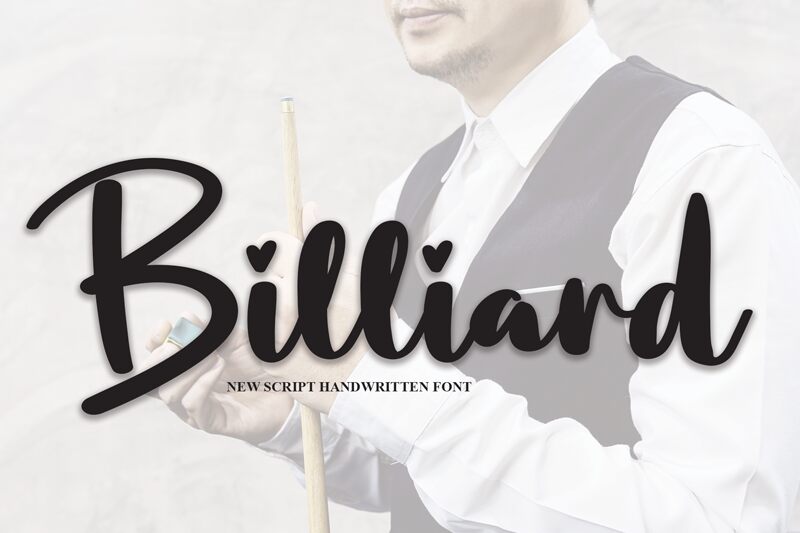
Billiard
Billiard, designed by Scratchones, is a charming and graceful font that exudes a sense of elegance. With its smooth brush strokes and feminine vibe, this typeface is perfect for projects that require a touch of playfulness and sophistication.
Its cute appearance makes it ideal for children's books, greeting cards, invitations, and even branding materials for beauty or fashion-related ventures. Whether you're aiming to create an enchanting fairytale or add a delightful twist to your designs, Billiard will effortlessly captivate your audience with its adorable allure.